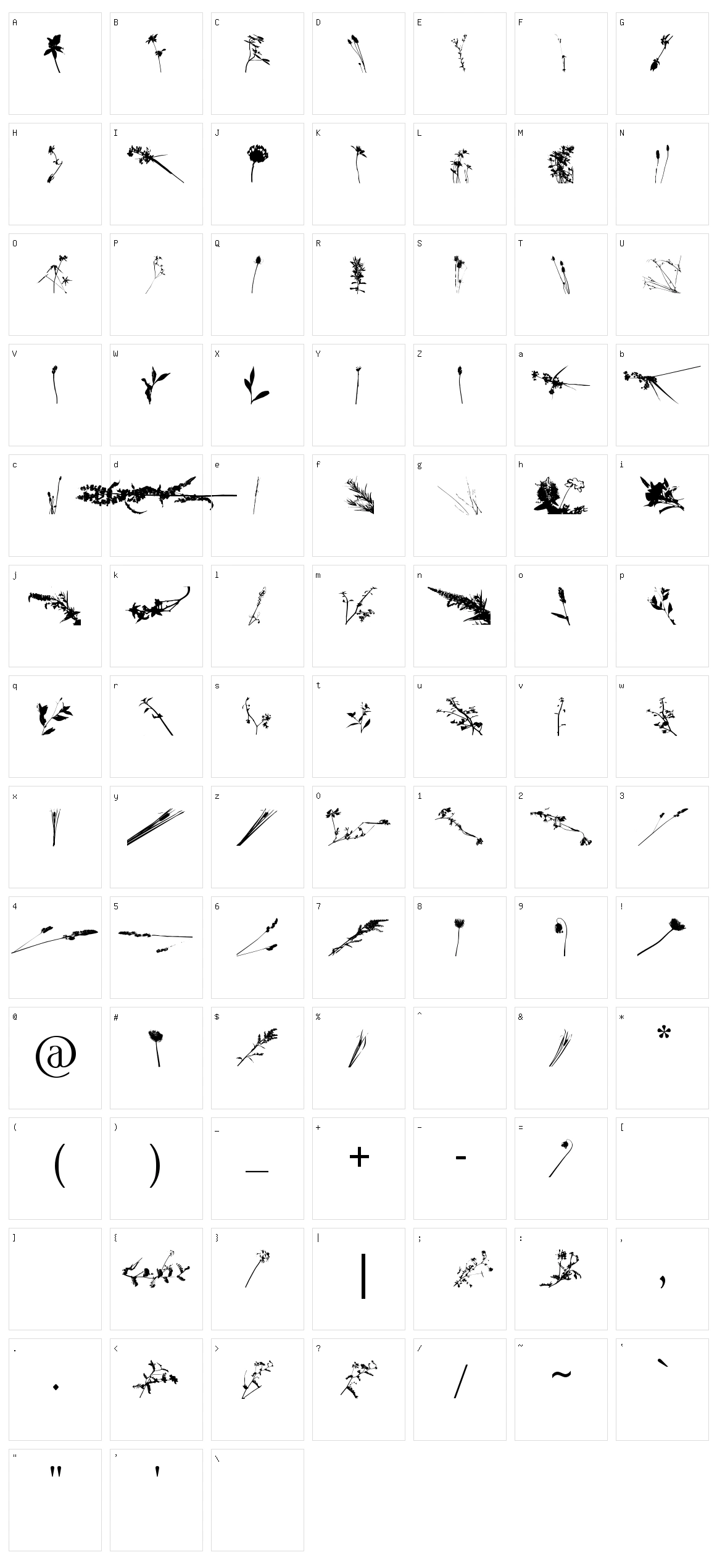
About this font:
I made this font from photographs of weeds. Yes, I drove around town looking for cool looking weeds and got out of the car to take a photo on a white backboard or picked weeds looking like a crazy person so you can have this. People kept asking me what I was doing. I'm contributing to art. Quit asking too many questions. Fortunately, nobody thought I was homeless. The white backboard thingy was a trifold presentation cardboard thing near the poster board at Dollar General. For the most part, I took pictures of the shadows of plants, and then I took pictures of the plant trying not to get anything in the way of the plant and avoiding shadows. Then I opened them up in photoshop. I cropped. I auto-toned. I played with the curves making it more white and more colorful. Then I inserted graphic into an outdated version of FontCreator by High Logic. Tip, you want the pictures to be smaller, or you will starve from boredom waiting for the computer to think.